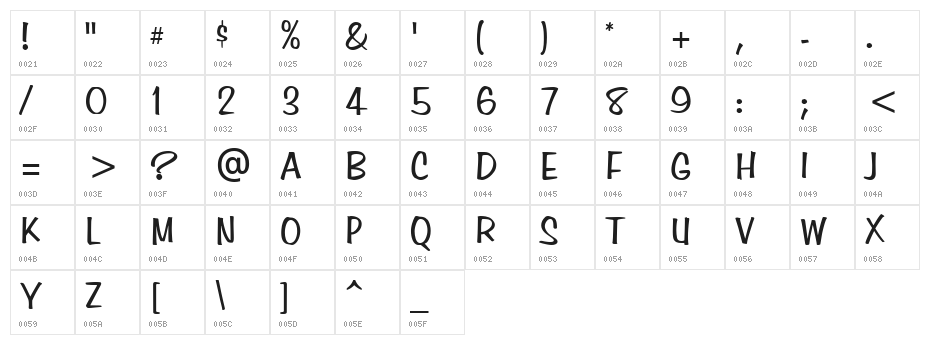
Benguiat Frisky Font
Benguiat Frisky Description
This font features a playful and whimsical design, characterized by its irregular, hand-drawn appearance. The letters have a slightly uneven baseline, giving them a lively and dynamic feel. The strokes are varied in thickness, adding to the font's quirky charm. The uppercase letters are bold and prominent, while the lowercase letters maintain a consistent style with unique flourishes, particularly noticeable in characters like 'g' and 'y'. The numerals and special characters are equally expressive, maintaining the overall playful aesthetic. This font is ideal for projects that require a touch of creativity and fun.